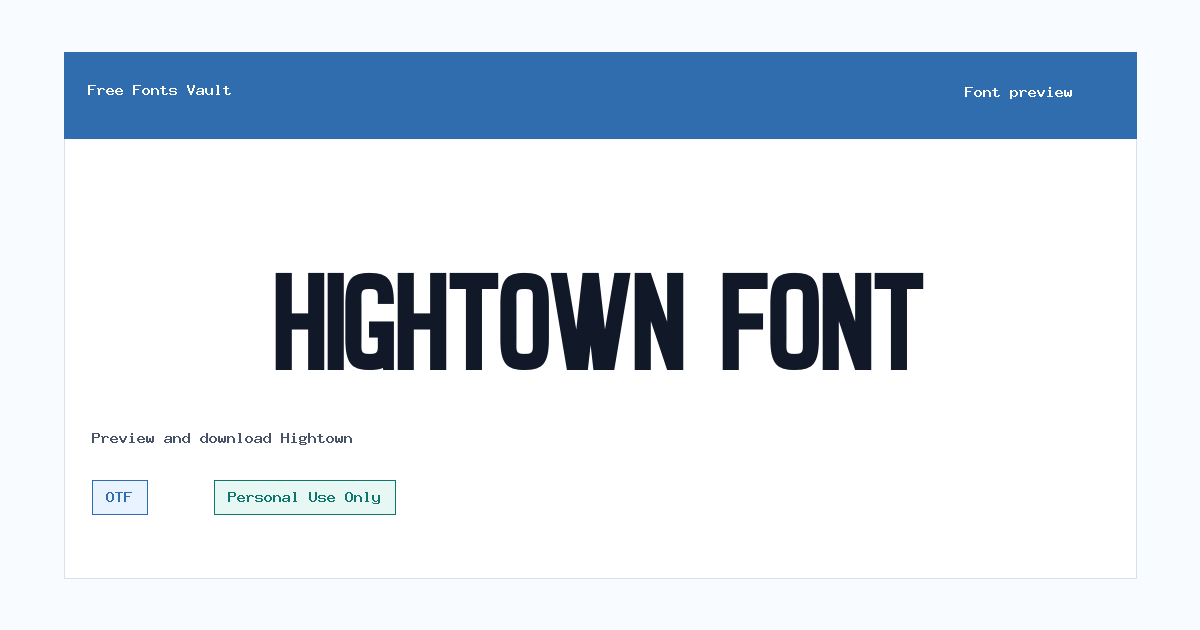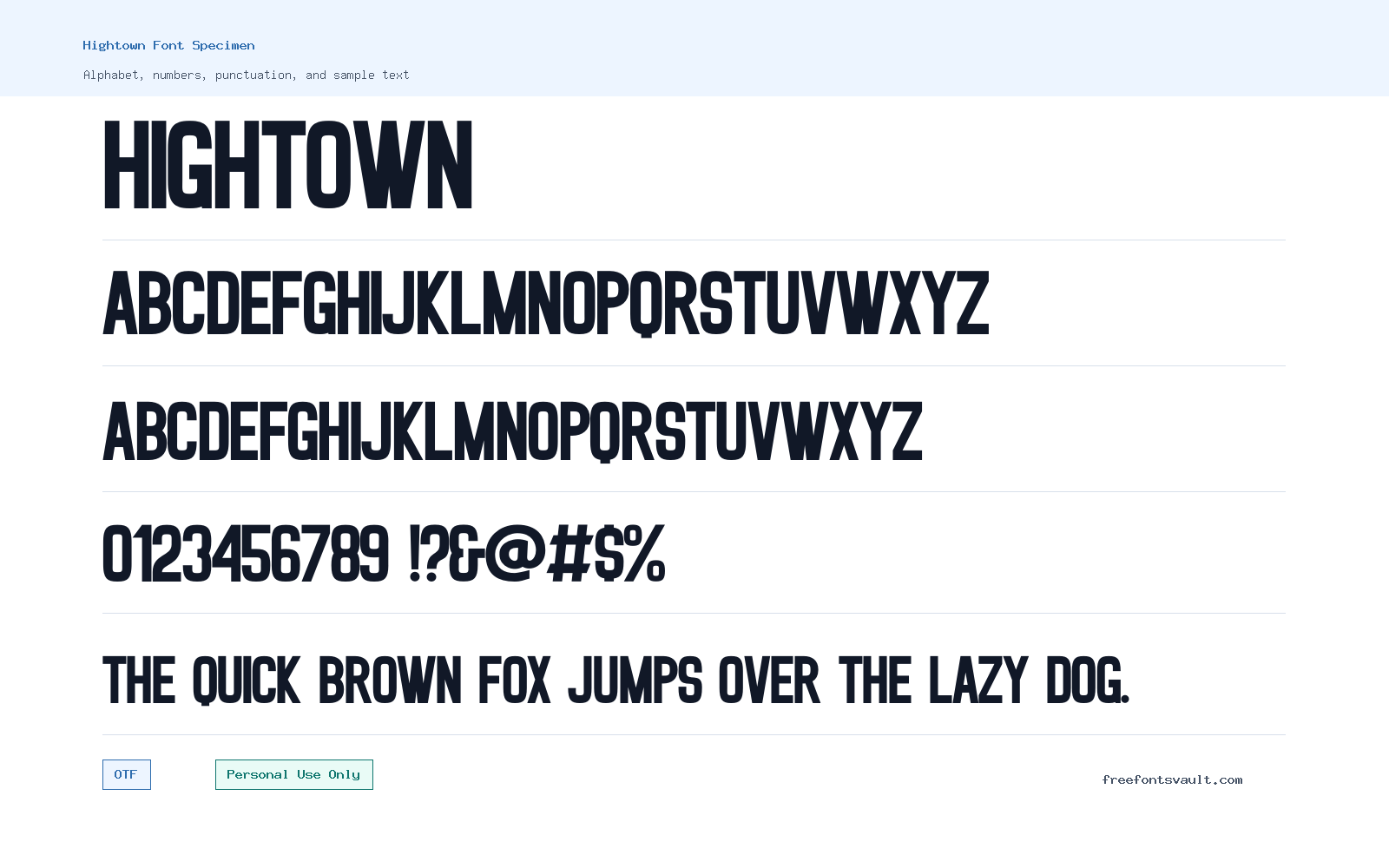
Hightown
Hightown font.
Hightown is a sans serif font from Muhamad Rizki Utomo, offered in a regular OTF file for personal-use projects. Use the live preview to test your own words before downloading.
About Hightown Font
Hightown is best approached as a display-friendly sans serif rather than a font to judge from the name alone. The available font file is the regular style, so the preview is the quickest way to see its spacing, letter shape, and how it handles your exact text. Try a short title, a brand-style wordmark, and a mixed-case sentence. That will show whether the font feels more suitable for bold headings, clean labels, or decorative short copy.
Because only one regular OTF variant is listed, Hightown is most practical when you need a single-style type choice for personal mockups, posters, social graphics, invitations, thumbnails, or title treatments. If you plan to use it in longer paragraphs, test several lines first. Many sans serif display fonts look strong in short text but may need extra line spacing or a simpler companion font for body copy. Pair it with a neutral text face if your design includes descriptions, menus, or small captions.
- Sans serif style suited to previewing short titles, labels, and personal design concepts
- Personal posters, graphics, mockups, and title layouts
- Short text previews where you can check spacing and readability before final use
Who designed Hightown?
Hightown is credited to Muhamad Rizki Utomo.
Is Hightown good for body text?
Test it before using it in paragraphs. With only a regular style listed, it may work better for headings and short lines than dense reading text.